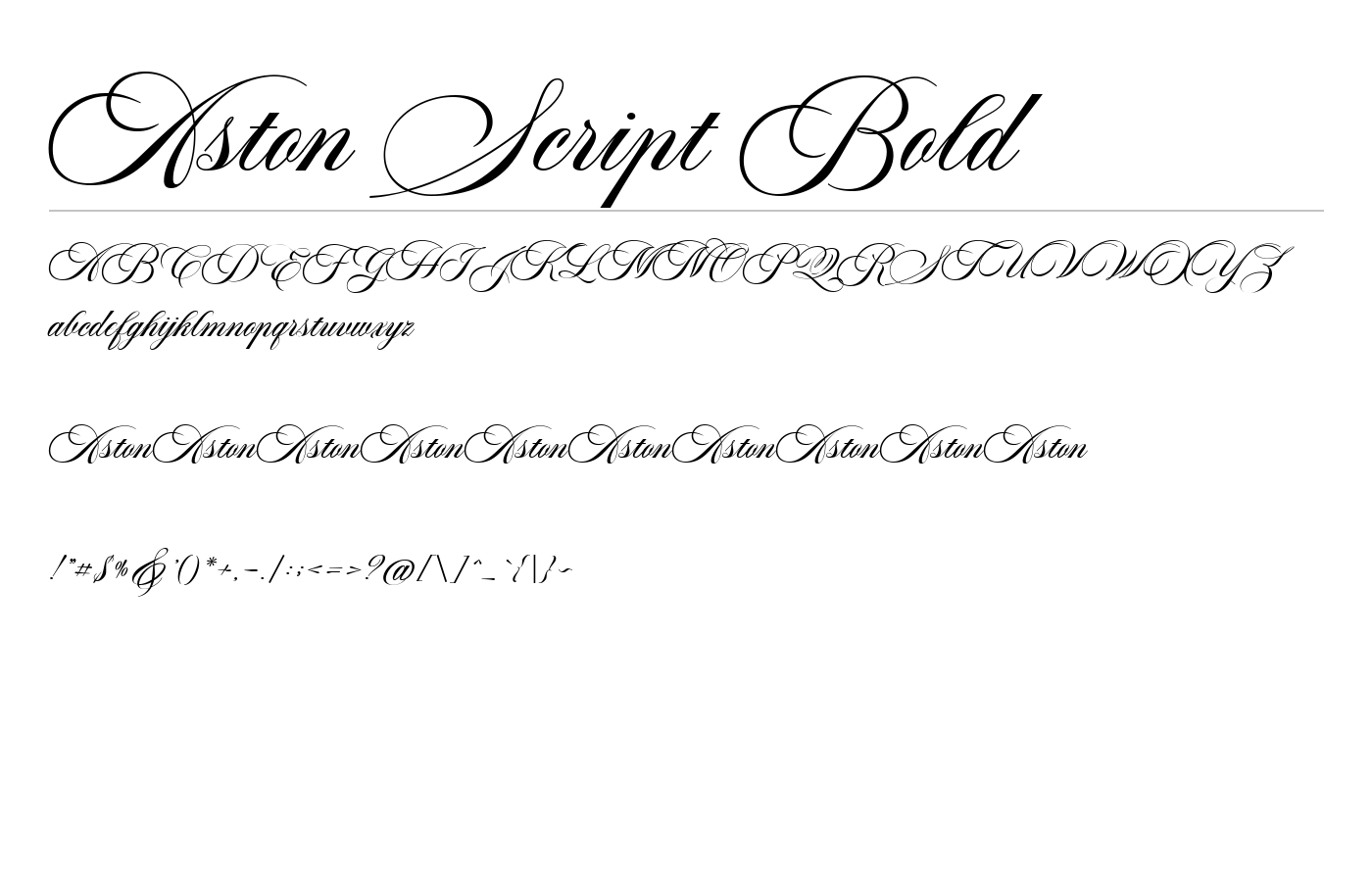
Aston Script Bold is an elegant, flowing script font with a high contrast between thick and thin strokes, showcasing refined, sweeping curves and delicate flourishes that give it a luxurious, classic feel. Its bold weight combined with graceful, calligraphic letterforms makes it ideal for sophisticated branding, wedding invitations, and upscale editorial designs where a touch of timeless elegance and personality is desired. This font shines in headlines and decorative uses, adding a sense of artistry and refinement.
Aston Script Bold Font
About Aston Script Bold Font